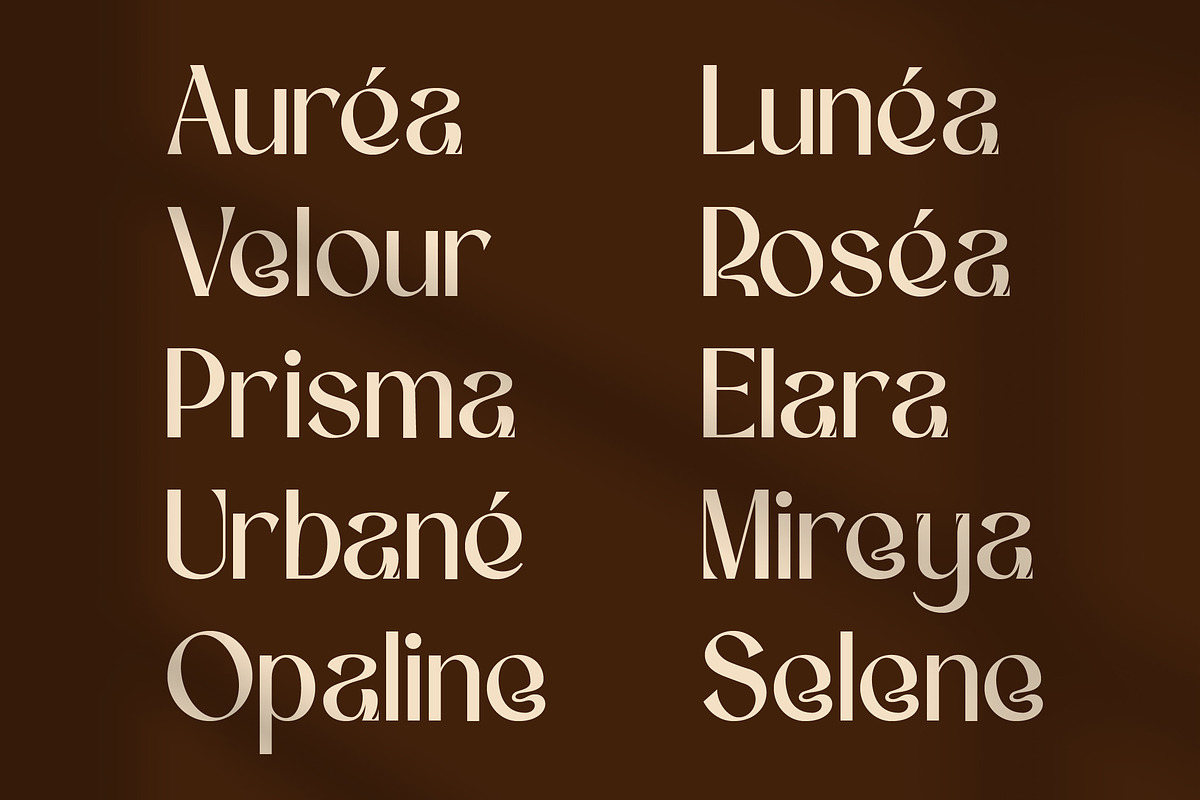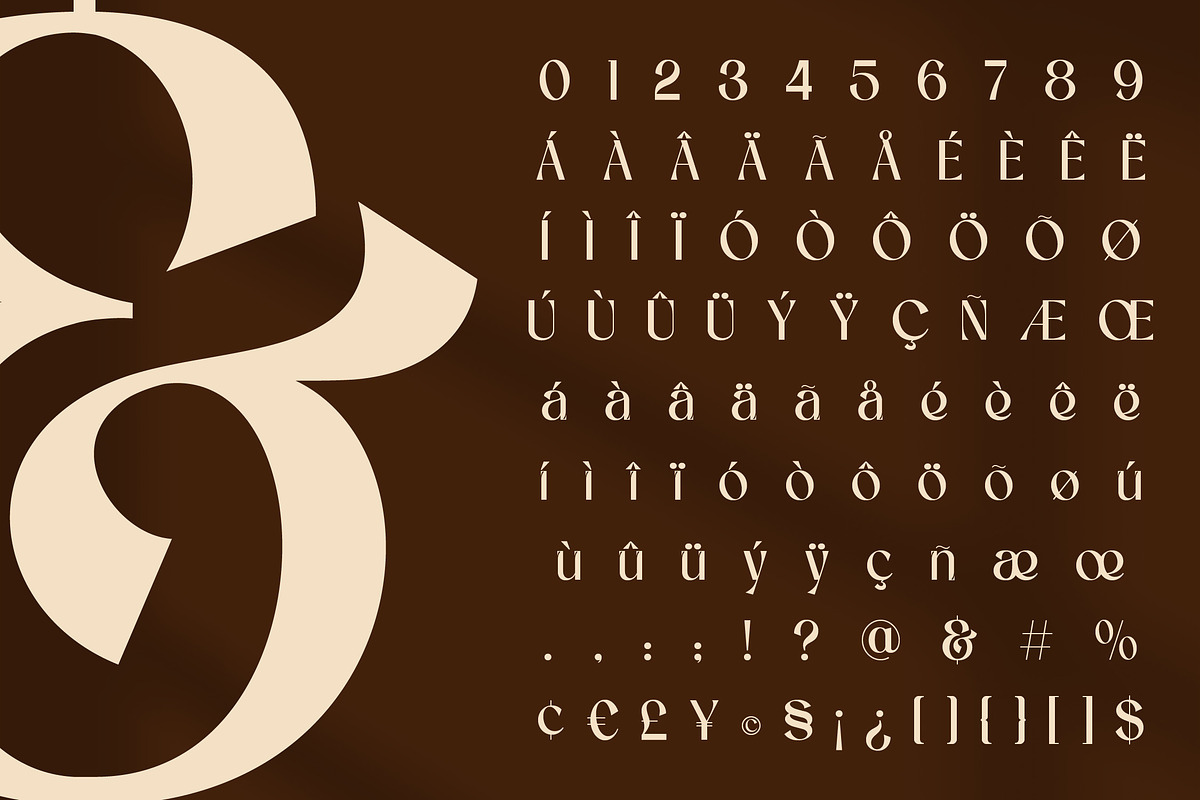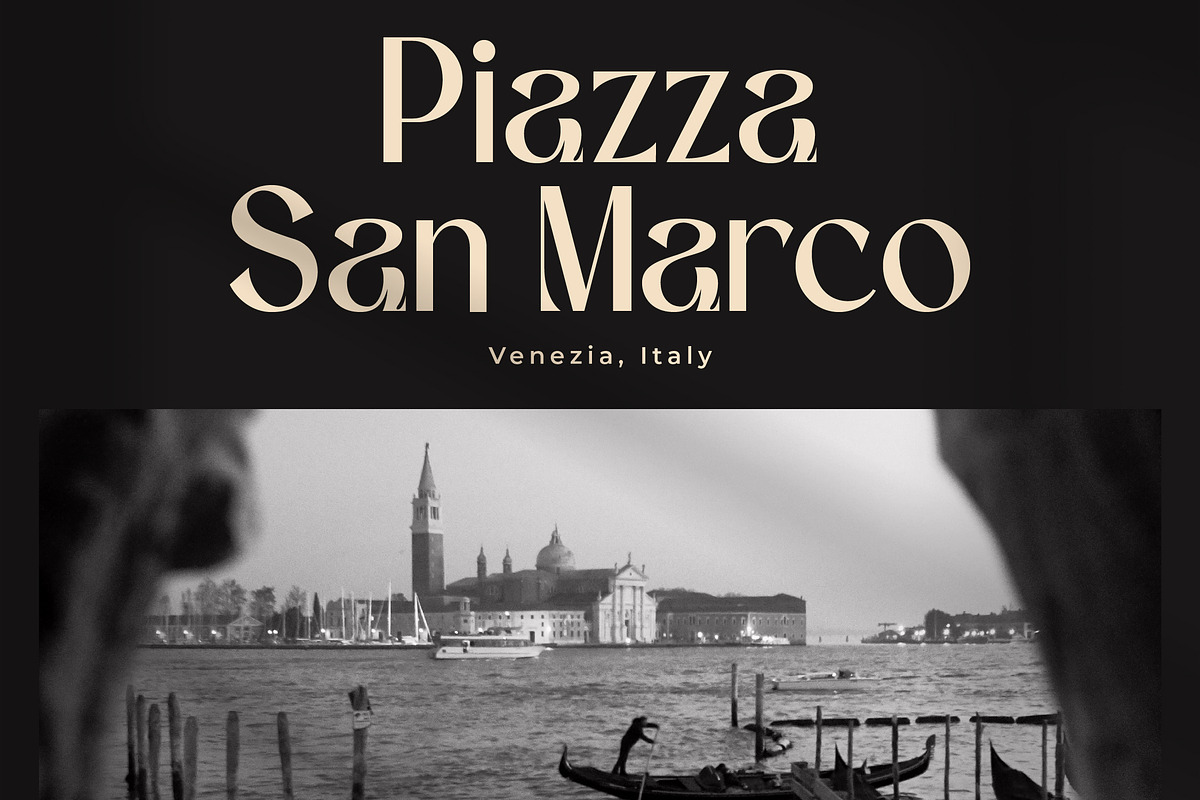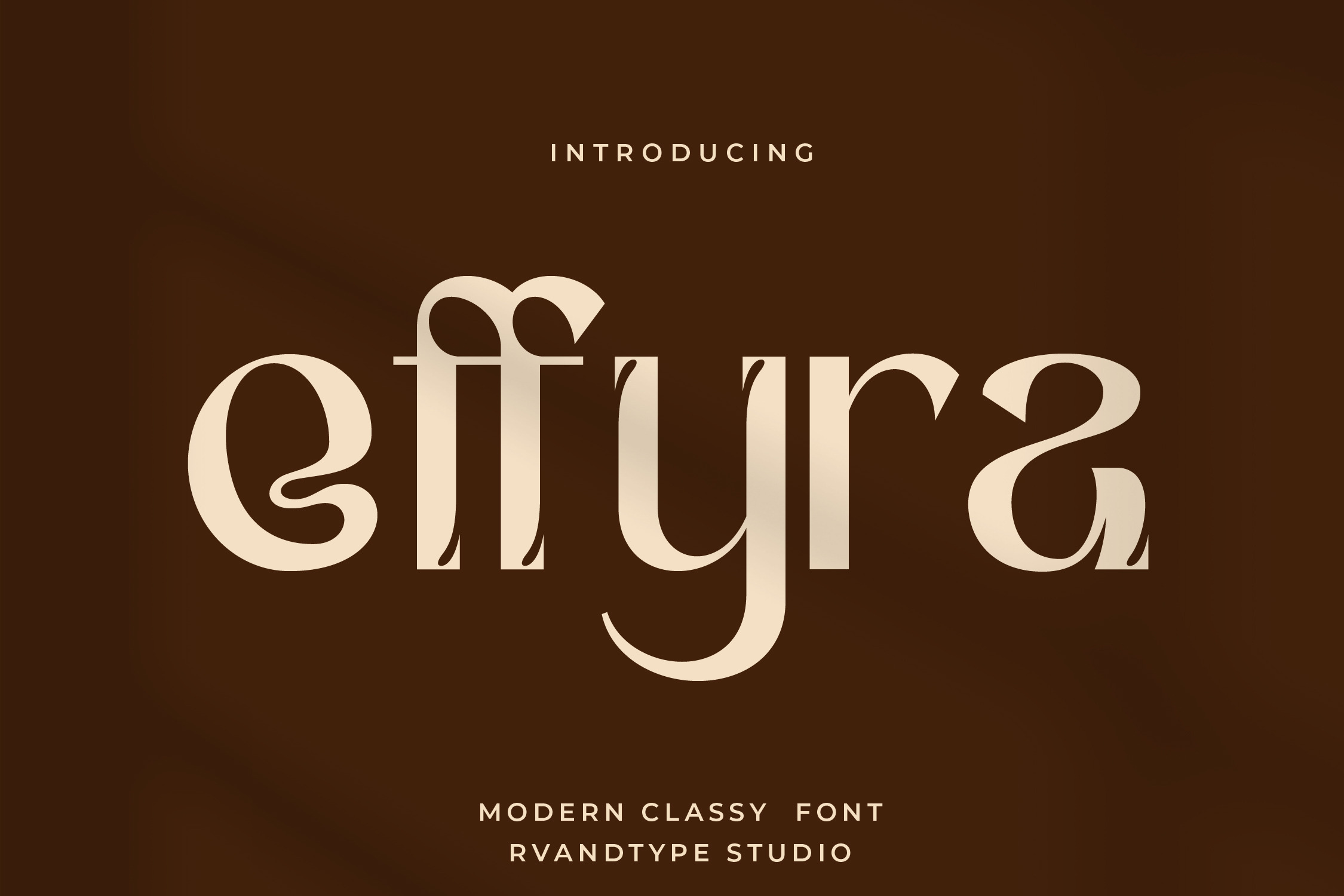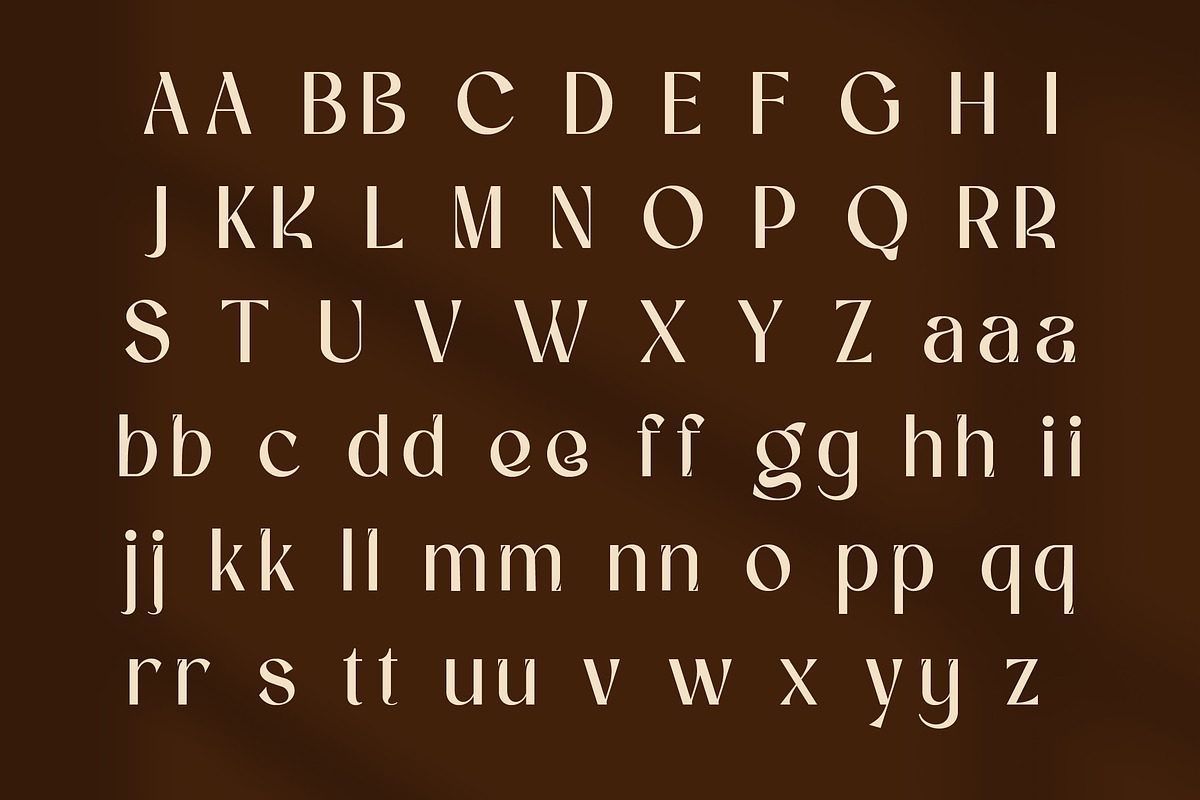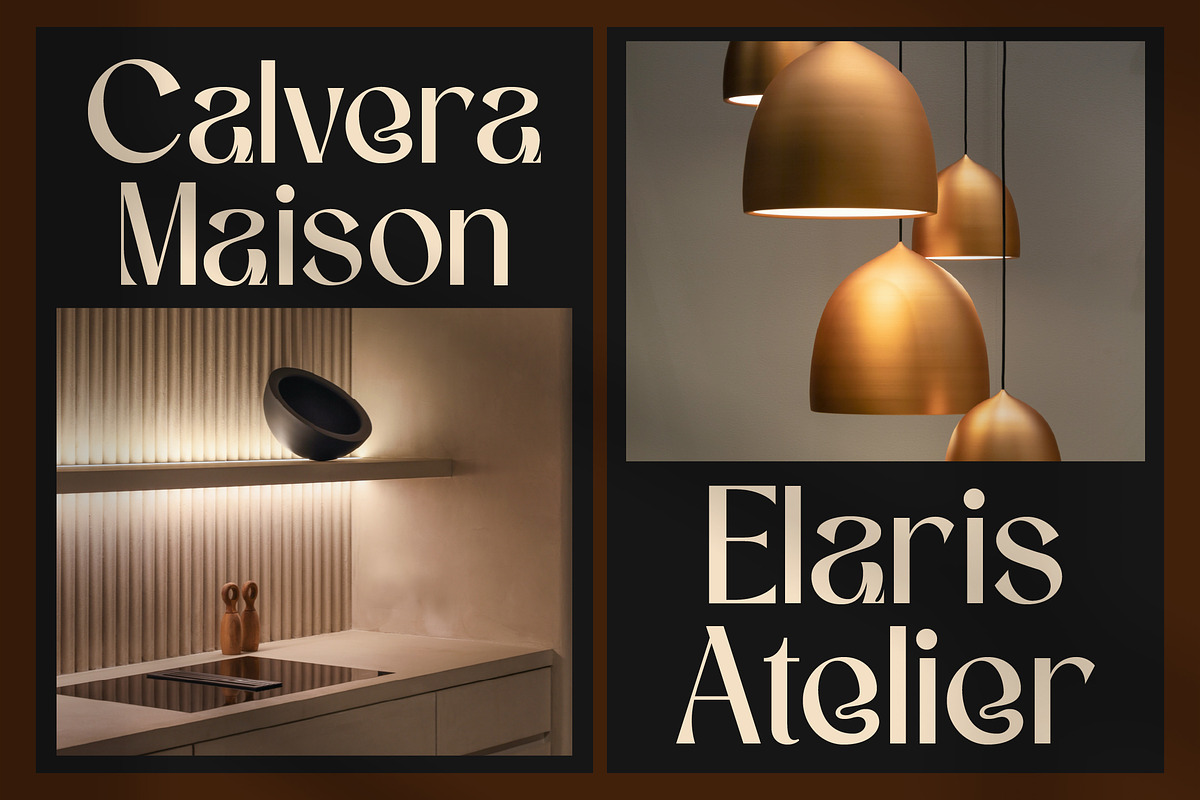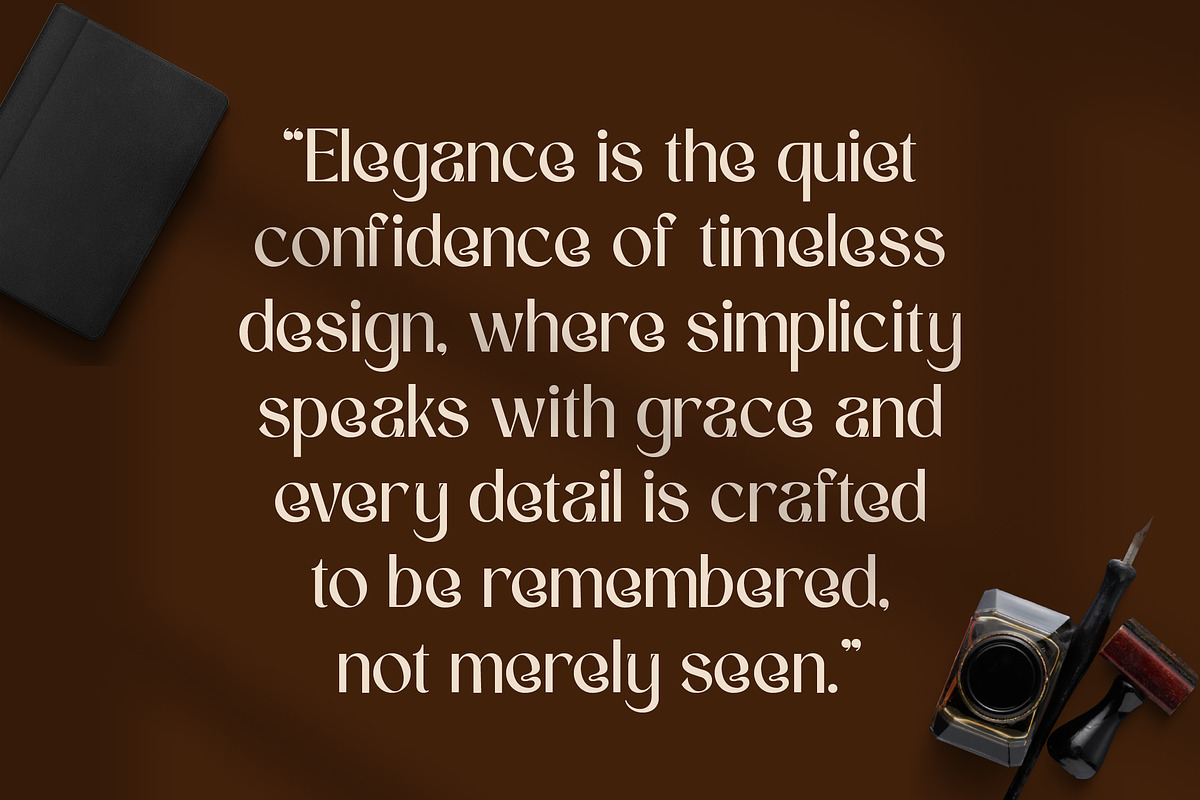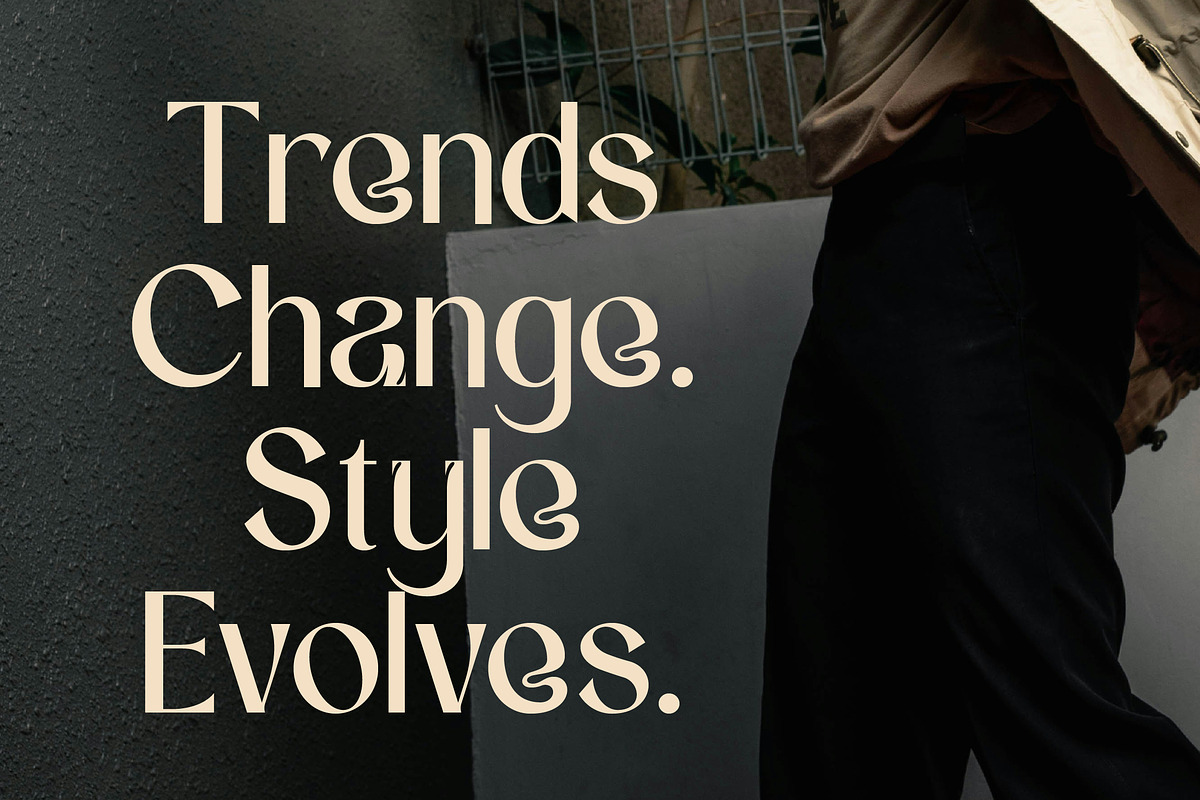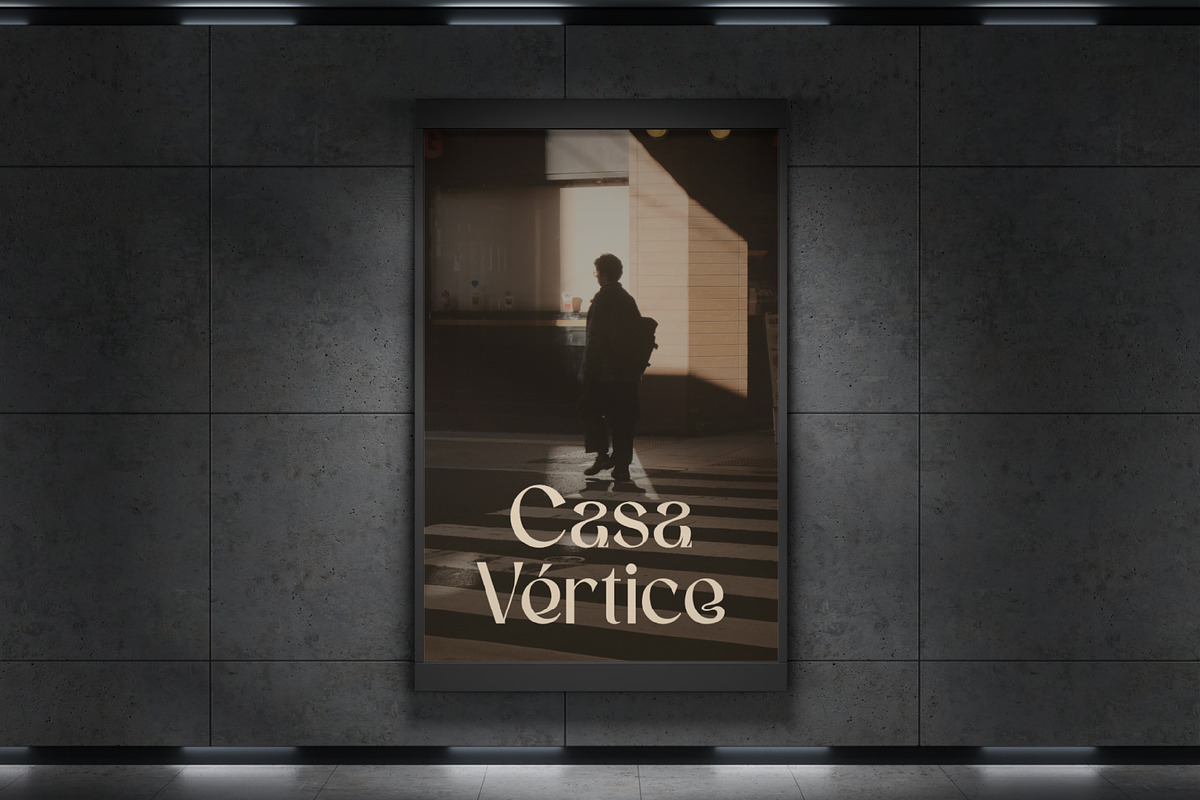
Effyra - Classy Stylish Font
Effyra was born from the idea that typography should speak softly, yet leave a lasting impression. Inspired by modern elegance and timeless beauty, Effyra blends smooth curves, refined serifs, and graceful proportions into a font that feels calm, confident, and luxurious.
Each character is carefully crafted to flow naturally—creating harmony between strength and softness. Subtle alternates and ligatures add a poetic touch, allowing words to feel more expressive and alive, without losing clarity or balance.
Effyra is designed for stories that deserve elegance. It doesn’t shout—it whispers sophistication.
- Alternate characters
- Luxury & fashion branding
- Editorial & magazine design
- Beauty & skincare products
- Wedding invitations & stationery
- Logos & brand identities
- Premium packaging
- Posters & social media content